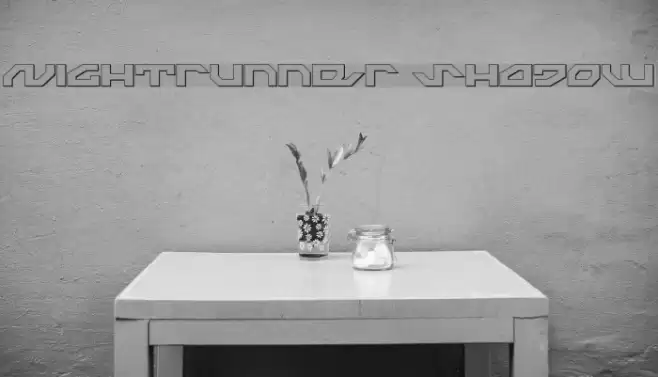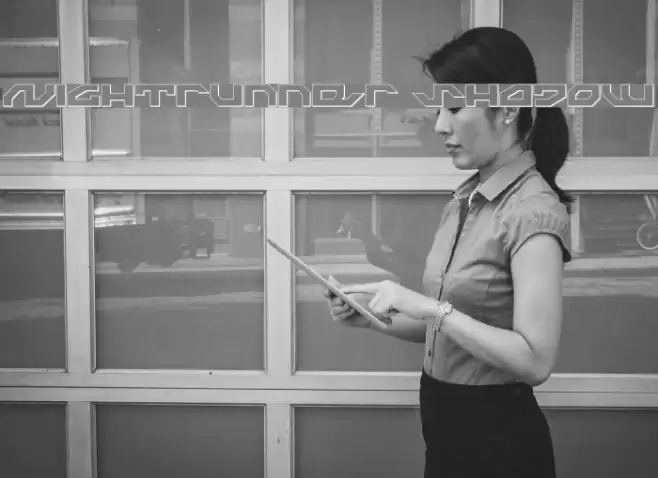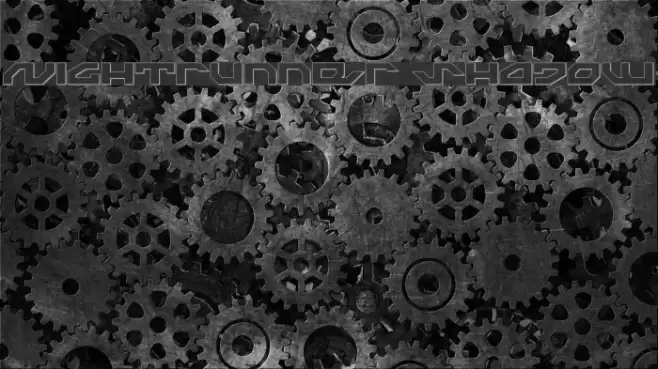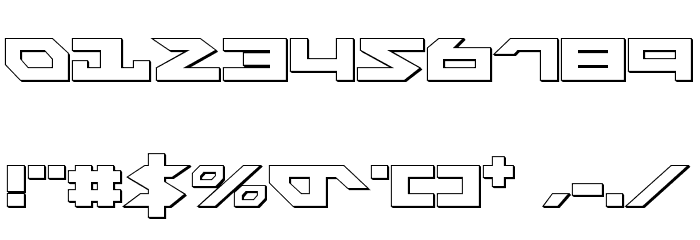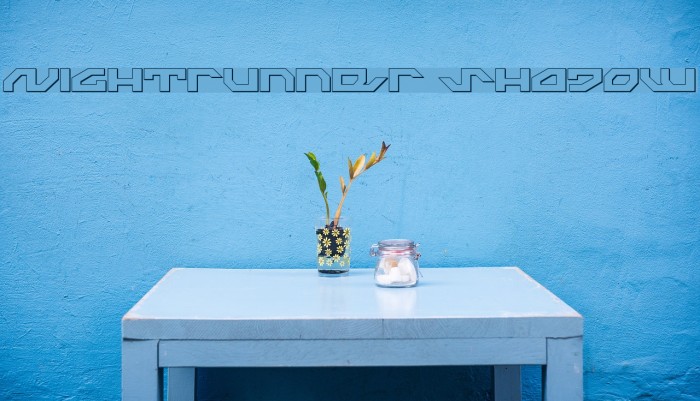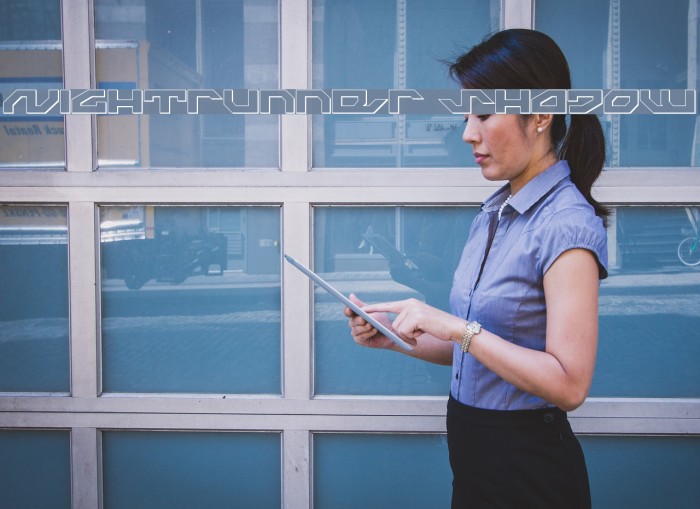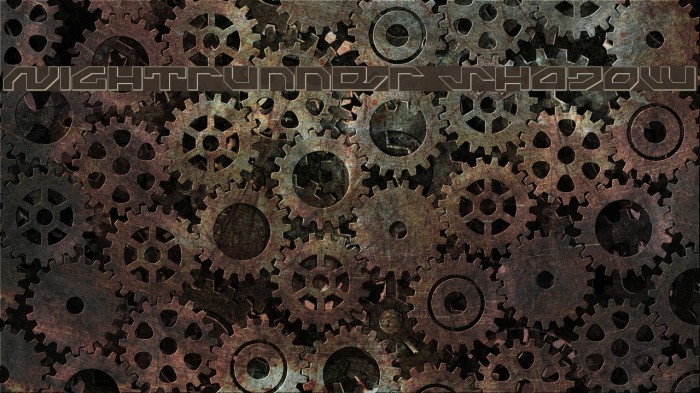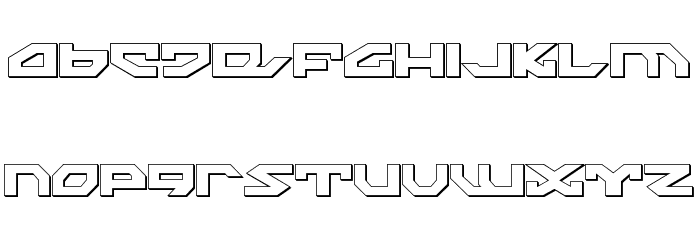
Nightrunner Shadow Font
Nightrunner Shadow Description
This font features a futuristic and angular design, characterized by its sharp edges and geometric shapes. The letters are outlined, creating a hollow effect that adds depth and dimension. The style is consistent across both uppercase and lowercase letters, as well as numbers and special characters. The font's unique structure gives it a dynamic and modern appearance, suitable for projects that require a bold and eye-catching typeface. The spacing between characters is tight, enhancing its compact and cohesive look.
A futuristic, angular font with sharp edges and geometric shapes from Sci-fi fonts.
- Proposed Projects: Ideal for sci-fi themed designs, video game titles, posters, and branding that requires a modern and edgy look.
- Character Spacing: Tight